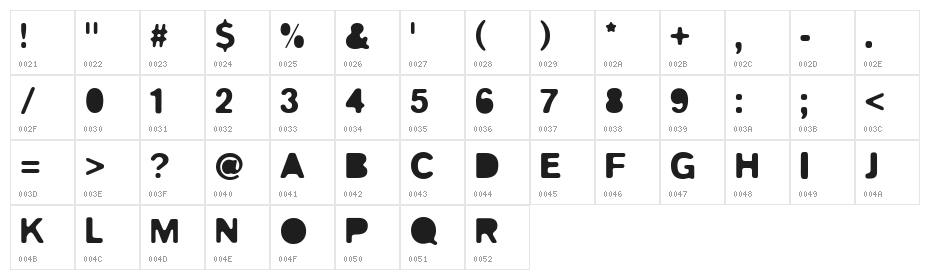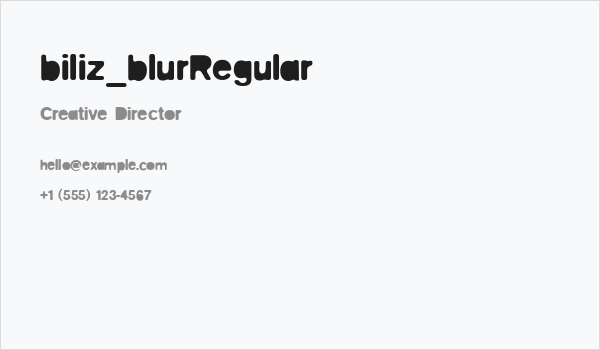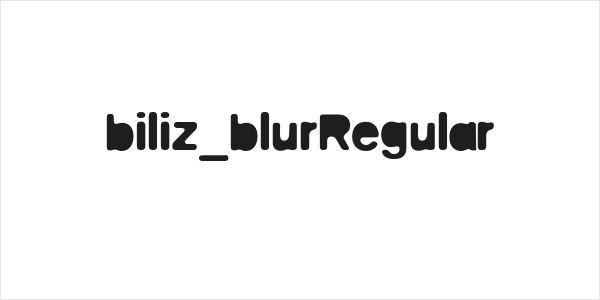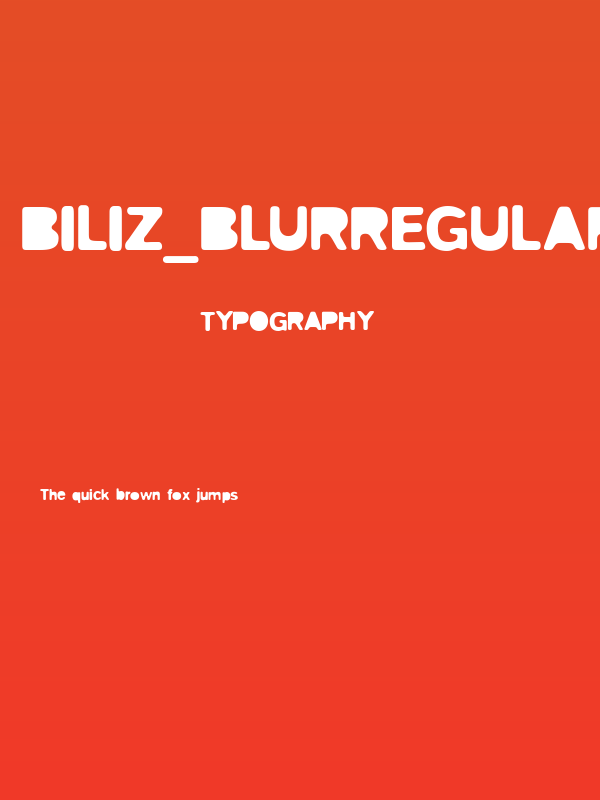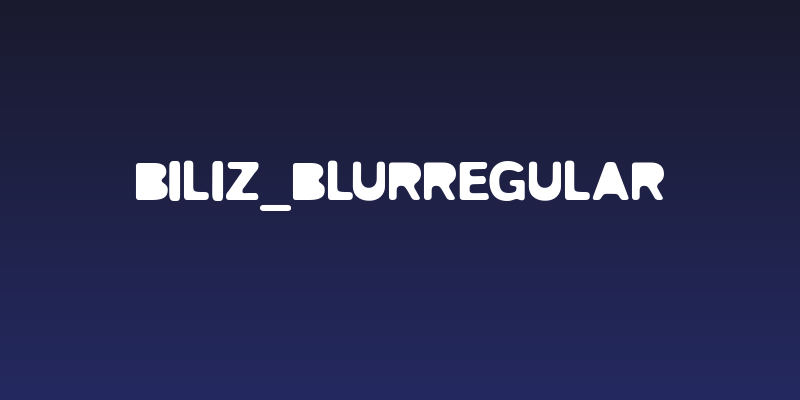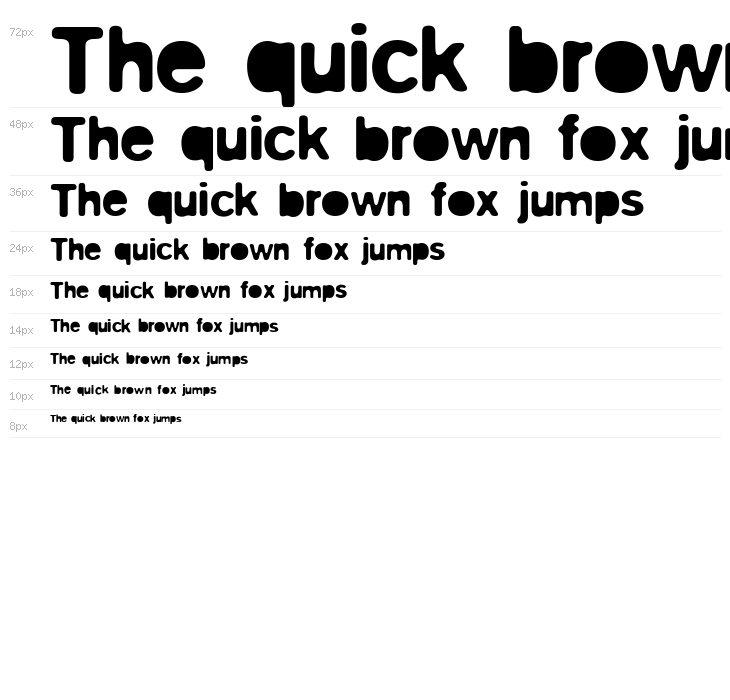
biliz_blurRegular Font
biliz_blurRegular Description
This font features a playful and bold design with rounded edges and a bubbly appearance. The characters are thick and have a uniform stroke width, giving them a strong presence. The rounded forms and lack of sharp angles contribute to a friendly and approachable aesthetic. The font maintains consistent proportions across uppercase, lowercase, numbers, and special characters, ensuring readability and balance. Its unique style makes it suitable for projects that require a fun and informal tone.
| Proposed Projects | Ideal for children's books, playful branding, posters, and social media graphics. |